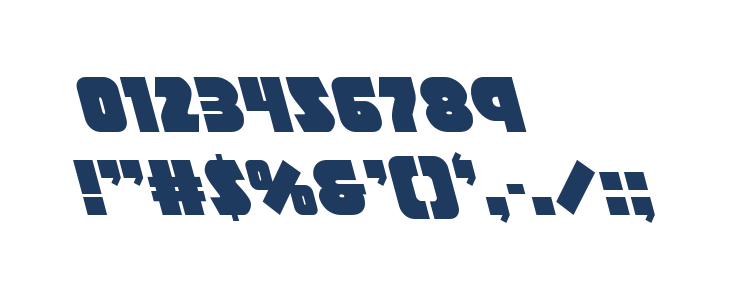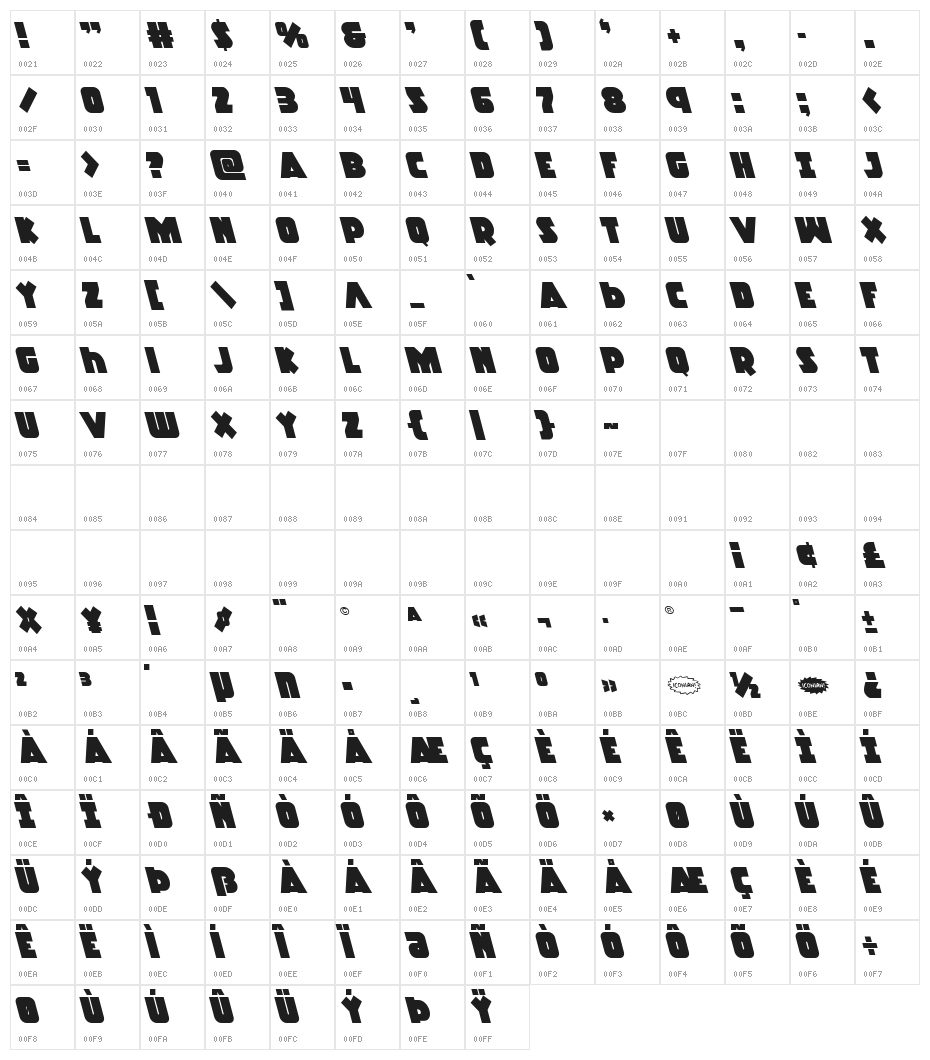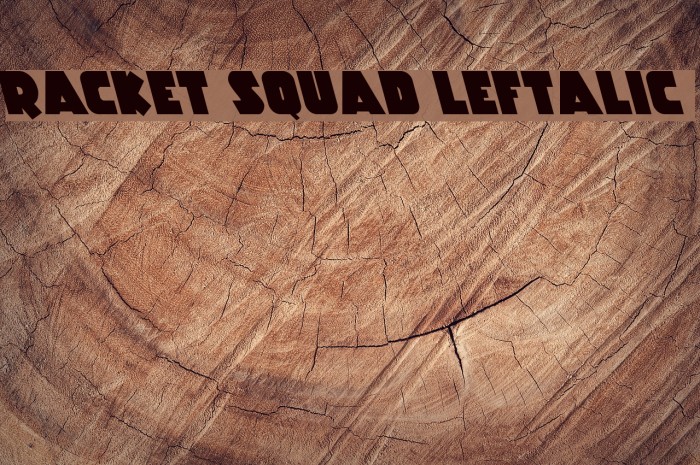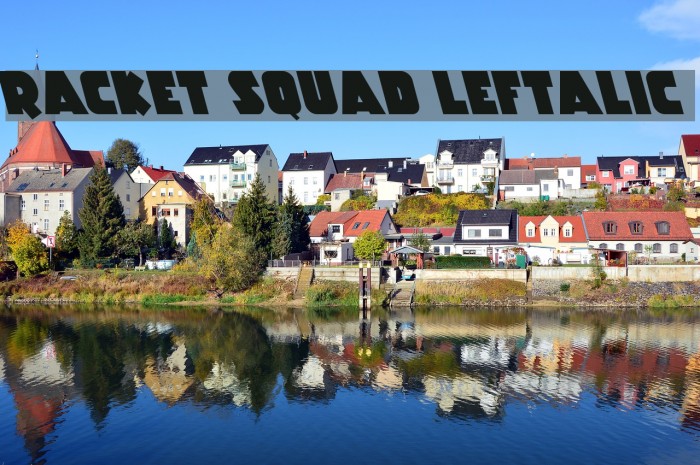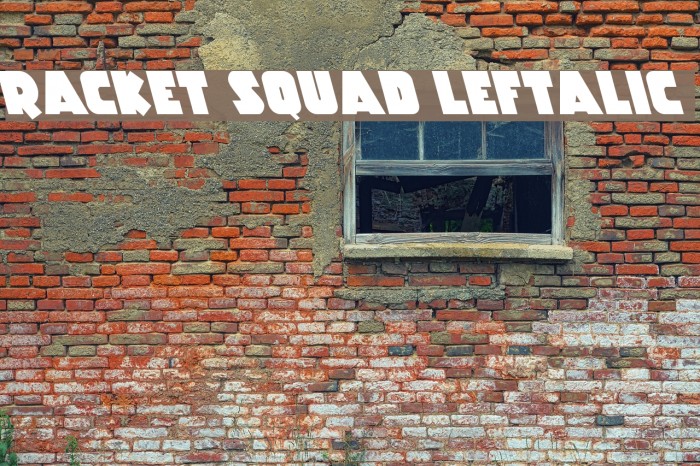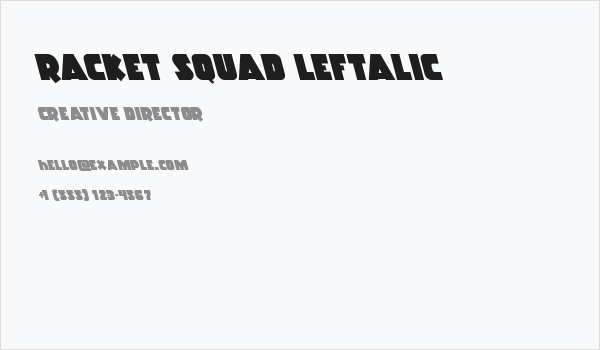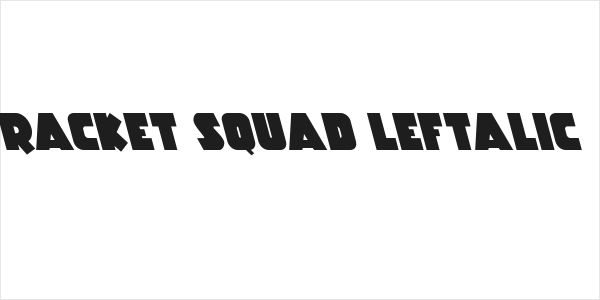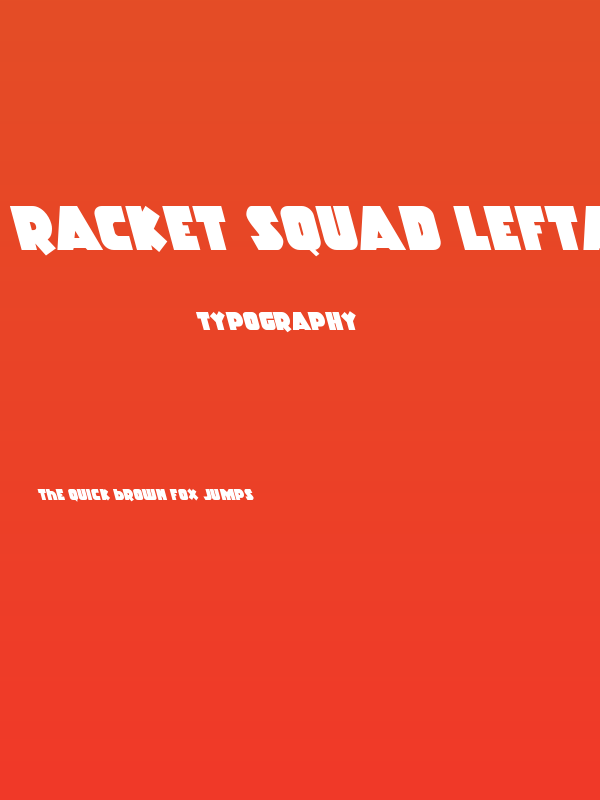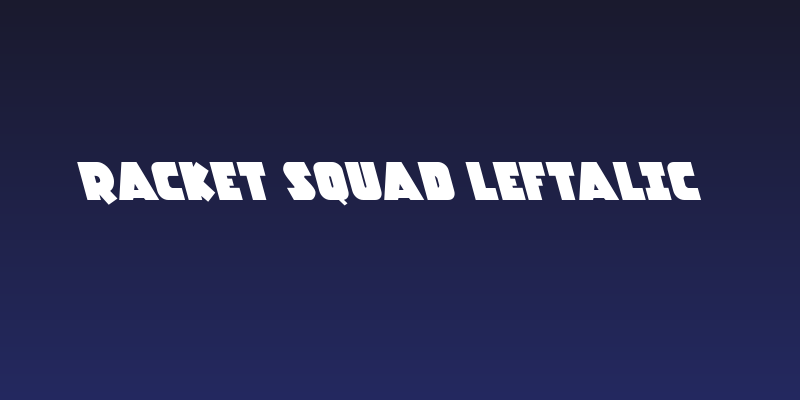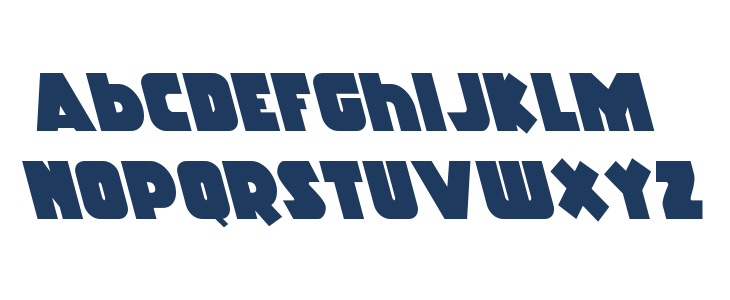
Racket Squad Leftalic Font
Racket Squad Leftalic Description
This bold, dynamic font features a striking, angular design with a leftward slant, giving it a sense of motion and energy. The characters are thick and blocky, with sharp edges and a geometric style that makes them stand out. The uppercase and lowercase letters maintain a consistent style, while the numbers and special characters are equally bold and impactful. This font's unique style is perfect for making a strong visual statement.
| Proposed Projects | Ideal for posters, logos, and branding projects that require a bold and dynamic look. |